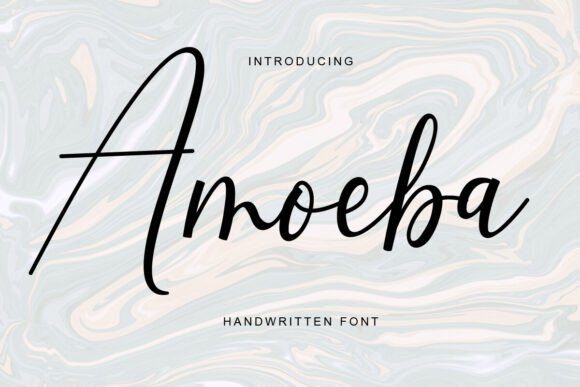
The Amoeba Font: A Charming Script to Elevate Your Creative Projects
I’ll never forget the time I was working on a handmade Christmas card project, searching for the perfect font to give it a personal touch. I had a vision of a whimsical, crafty script that would make my design stand out, but I just couldn’t find the right one. That was until I stumbled upon the Amoeba font. With its unique blend of warmth and playfulness, it instantly captured the essence of my project and brought it to life.
A Personal Review of Amoeba Font
As a designer, I’m always on the lookout for fonts that can add a touch of personality to my projects. The Amoeba font has quickly become one of my go-to’s, and here’s why:
• ✨ Whimsical and crafty style: Amoeba’s hand-scribbled feel makes it perfect for craft projects, greeting cards, and decorations.
• ✅ Easy to read: Despite its playful nature, the font remains clear and legible, even at smaller sizes.
• ✨ Highly versatile: Use it for festive occasions like Christmas, holidays, and Thanksgiving, or for more general craft lettering and embroidery projects.
Of course, no font is perfect, and Amoeba has a few minor quirks:
• ⚠️ Limited use in very formal contexts: Amoeba’s playful nature makes it less suitable for formal or professional designs.
• 🤔 Some letter combinations may require manual adjustment: As with any script font, you may need to tweak certain letter pairs to achieve optimal spacing and flow.
The Story Behind Amoeba Font
Amoeba font was designed with the intention of capturing the warmth and personality of handmade crafts. The designer aimed to create a font that would evoke a sense of artisanal authenticity, perfect for crafty projects and festive designs. The result is a charming script that adds a touch of whimsy to any design.
What type of projects is Amoeba font best suited for? Amoeba font is perfect for craft projects, greeting cards, decorations, craft lettering, embroidery, and festive occasions like Christmas, holidays, and Thanksgiving.
Is Amoeba font easy to read? Yes, despite its playful nature, Amoeba font remains clear and legible, even at smaller sizes.
Does Amoeba font support OpenType features? Yes, Amoeba font supports OpenType features like ligatures, stylistic alternates, and glyphs, which can be accessed in compatible design software.